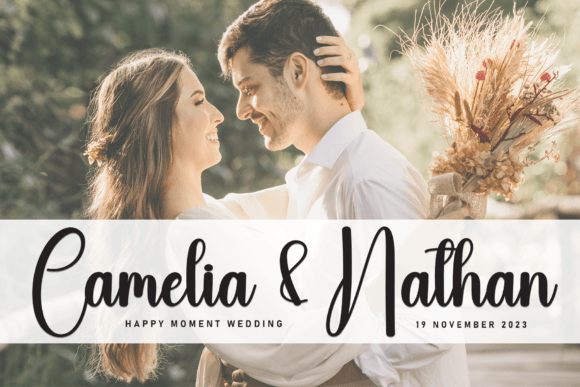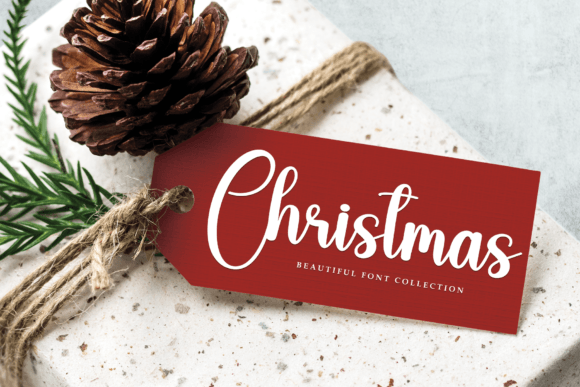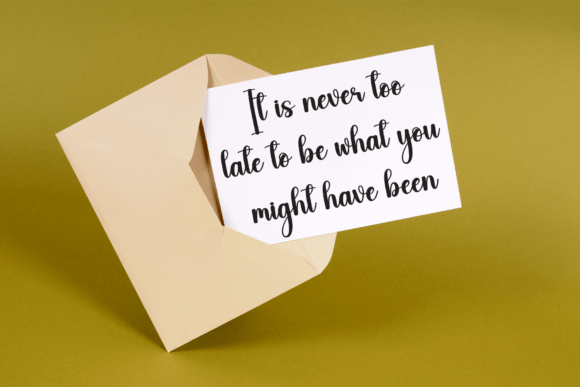
Introduction to Barbie Bold Font
Have you ever stared at a blank page, surrounded by scraps of paper, glue sticks, and a mix of emotions – excitement and nervousness? This is the moment when a creative project truly comes to life. For designers, this feeling is a constant companion, guiding us to create something truly special. And sometimes, all it takes is the perfect font to bring our ideas to the forefront.
Enter the Barbie Bold Font, a sweet and friendly handwritten display font that is sure to add a touch of whimsy to any design. Whether you’re crafting wedding invitations, cards, or any other project that needs a fun and playful vibe, this font is an ideal choice. With its high-quality design and transparent background, it’s a valuable resource for designers looking to add a personal touch to their work.
Key Features of Barbie Bold Font
- High-quality design resource ideal for creative projects, offering a unique and stylish aesthetic.
- Features a transparent background, allowing for seamless integration with any design or project.
- Designed to be versatile and suitable for a wide range of creative applications, from digital art to print materials.
- Includes 1 font style with 1 weight, making it easy to incorporate into your design without overwhelming options.
Honest Review: Barbie Bold Font
I recently had the chance to experiment with the Barbie Bold Font, and I must say it’s a fantastic addition to any designer’s toolkit. This font is perfect for creating eye-catching headings and titles in your creative project.
What works well: ✨ The high quality of the font is immediately noticeable, and it’s great to see a transparent background that makes it easy to use on any design resource. The font is also highly customizable, allowing you to adjust the size, color, and style to fit your needs.
- Highly customizable
However, there are a few limitations to keep in mind: ⚠️ The font may not be suitable for smaller text sizes, as it can appear pixelated. Additionally, some users may find the font a bit too bold, so be sure to use it sparingly.
The Barbie Bold Font is a versatile design resource that can be used in various creative projects, including:
- Branding and logo design
- Print and digital advertising
- Designing for kids and young adults